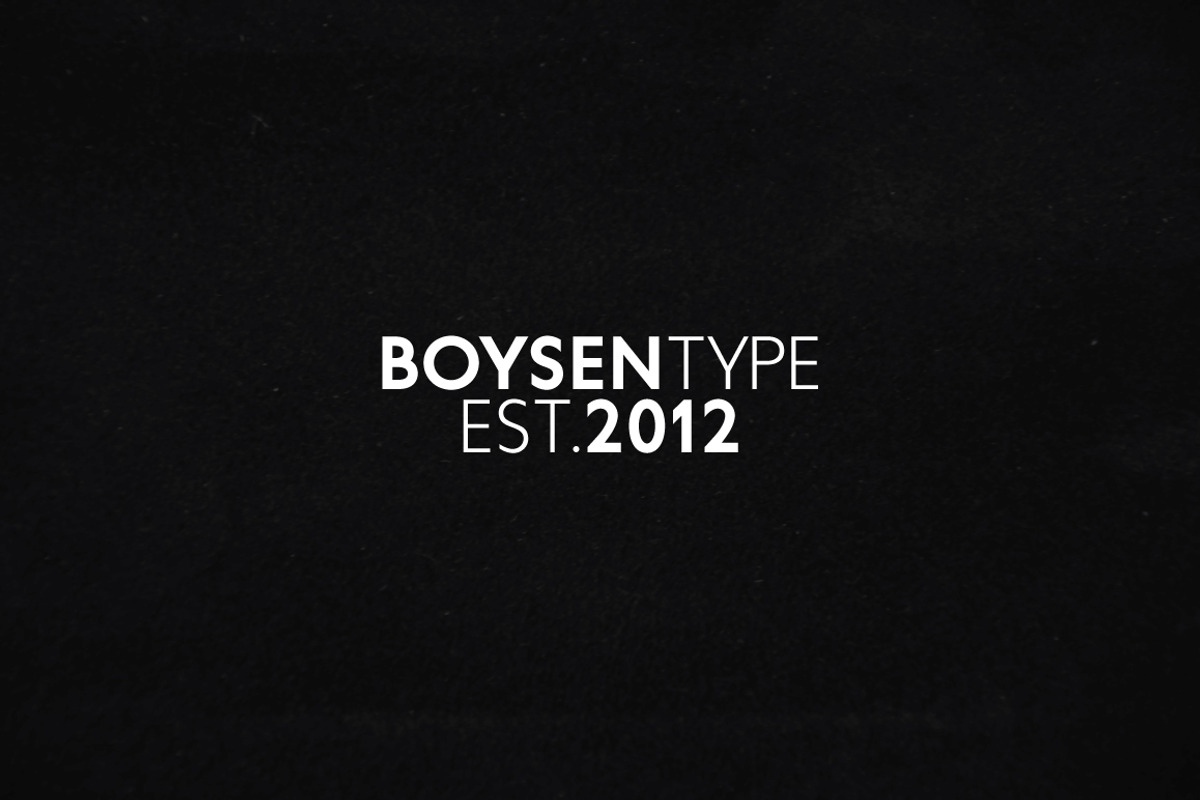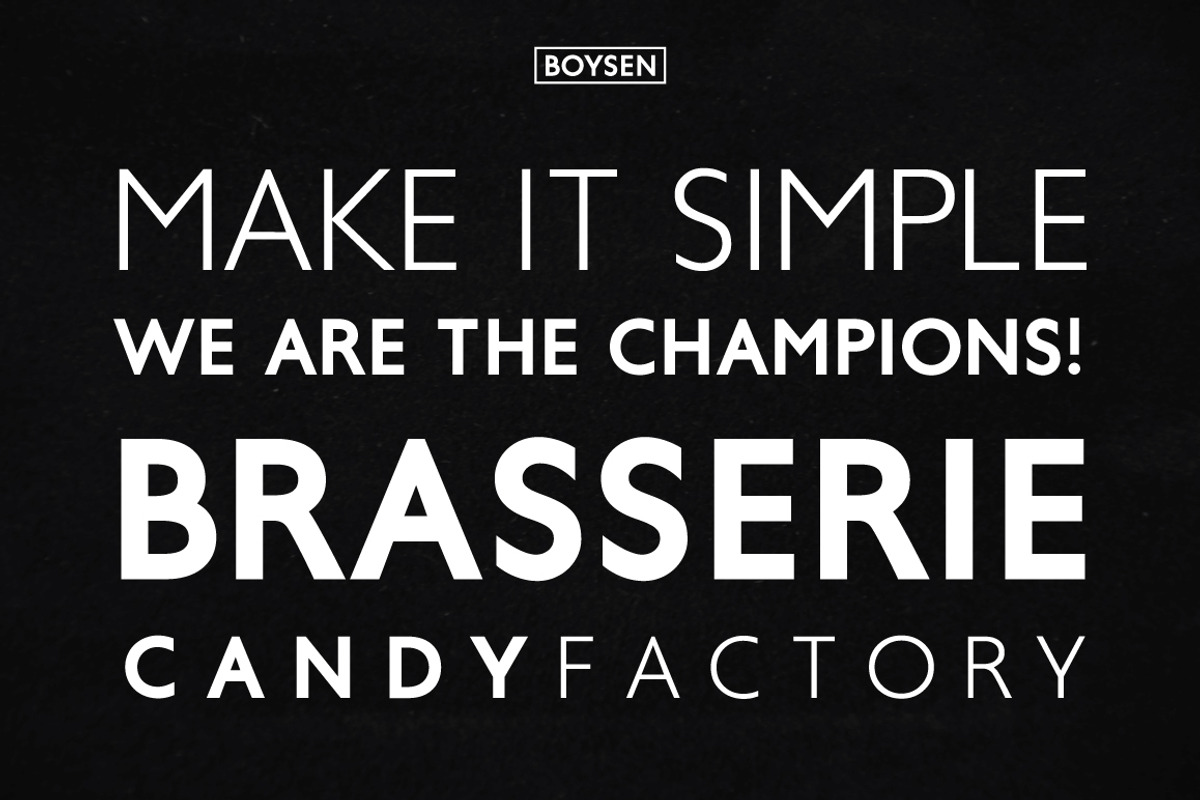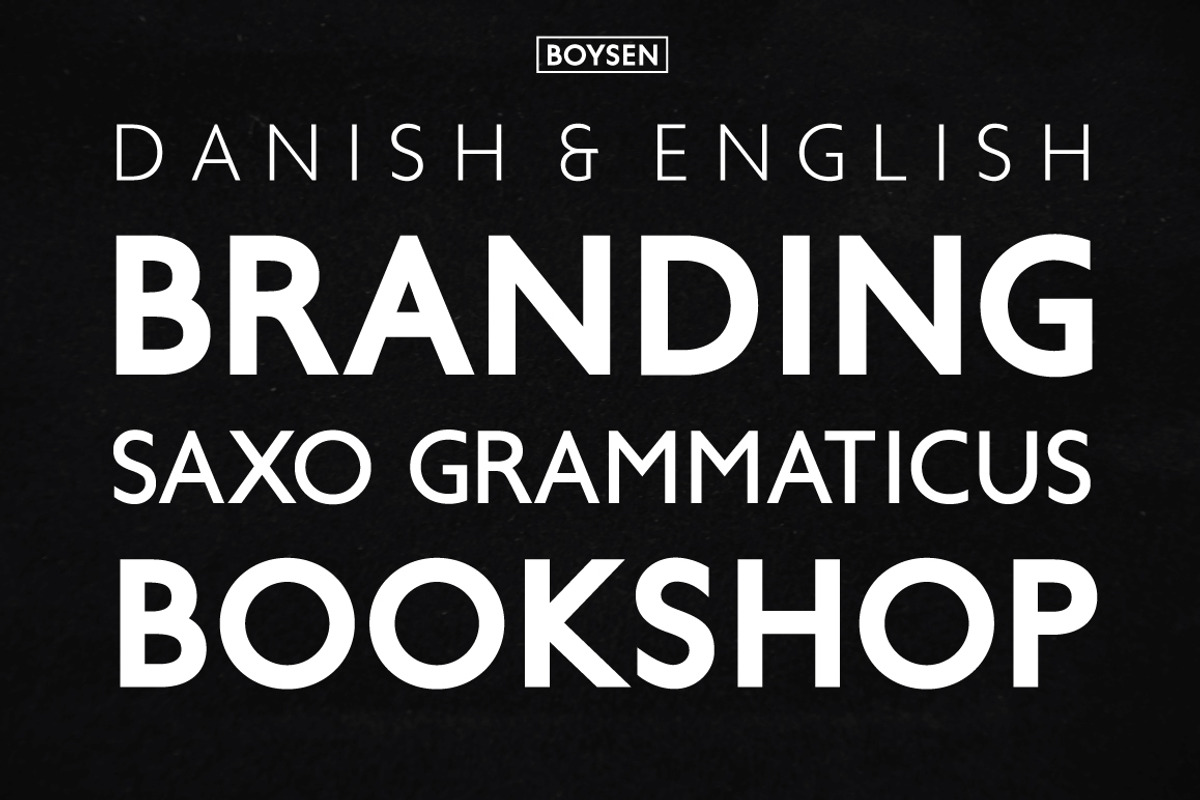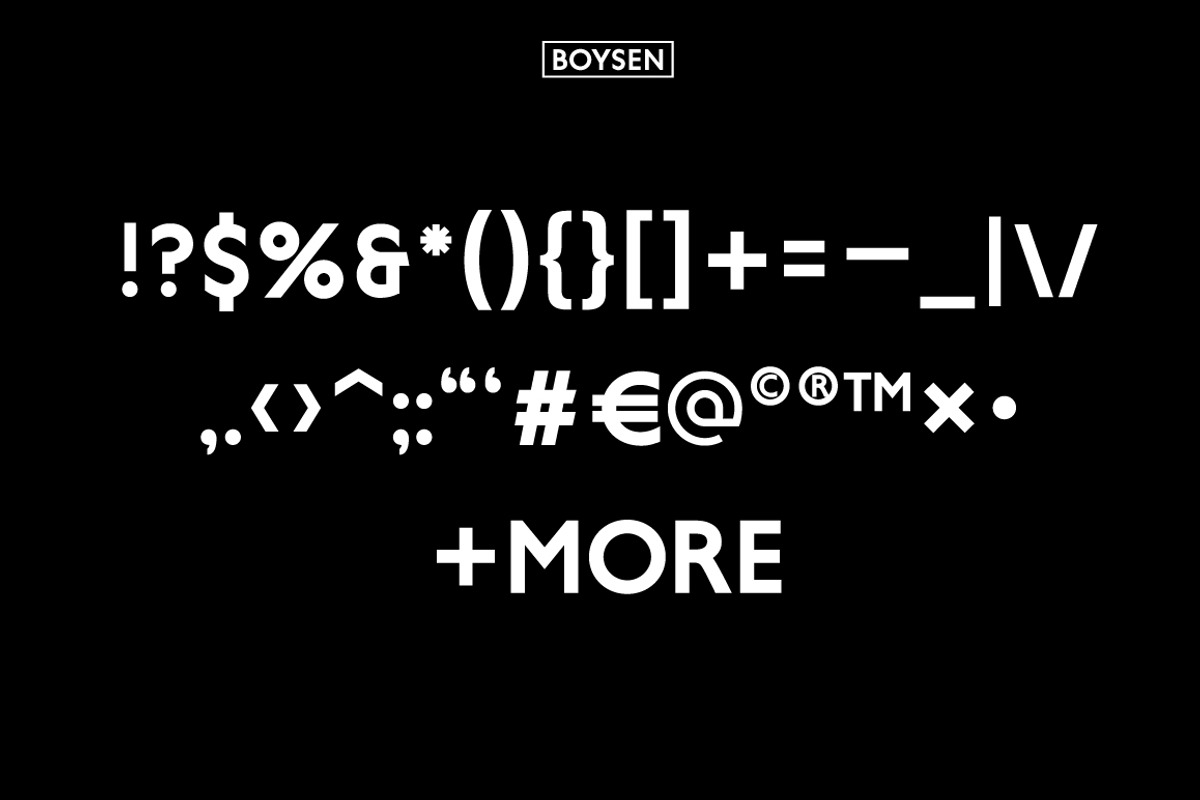
Boysen Typeface
Boysen Typeface by Jan-Christian Bruun is a font selected for branding, posters, packaging, typography.
- BOYSEN Boysen is an uppercase typeface in three weights.
- I chose to focus only on the big characters, rather than the small ones.
- Boysen Light
- Boysen Regular
- Boysen Bold
Boysen Typeface by Jan-Christian Bruun fits naturally into Branding, posters, packaging, typography.